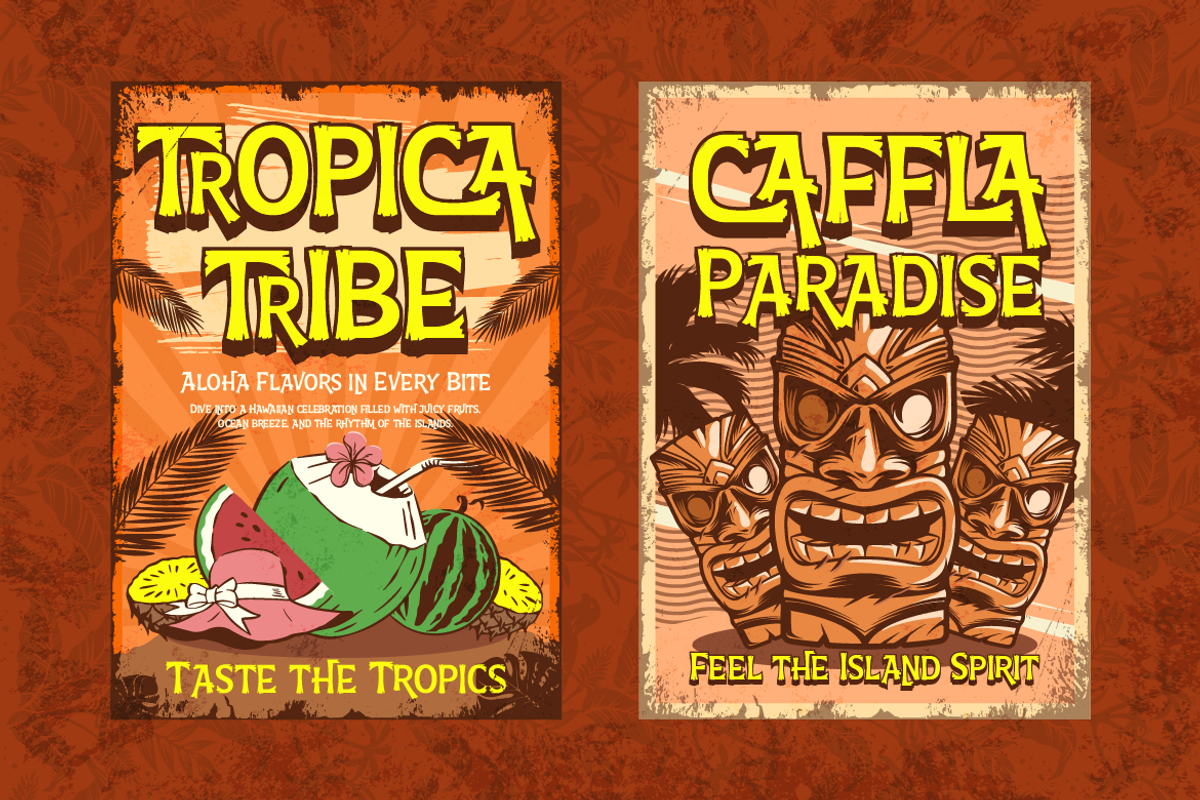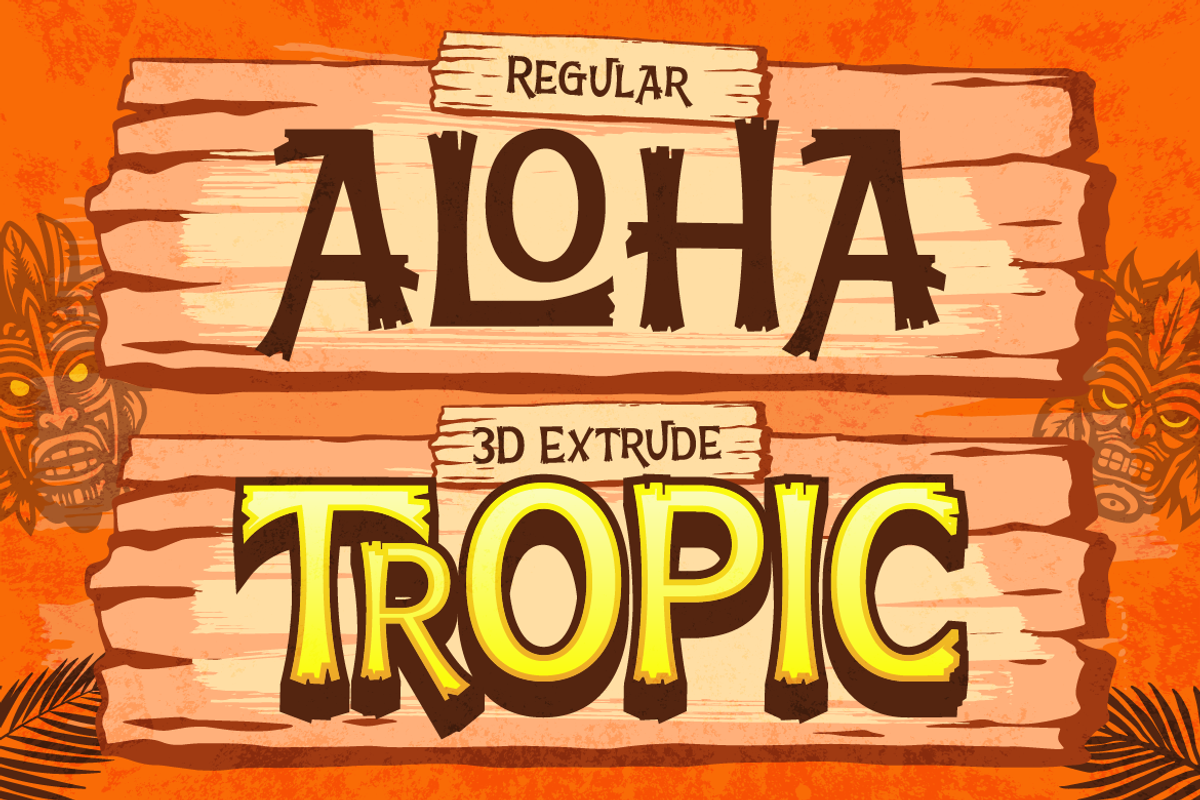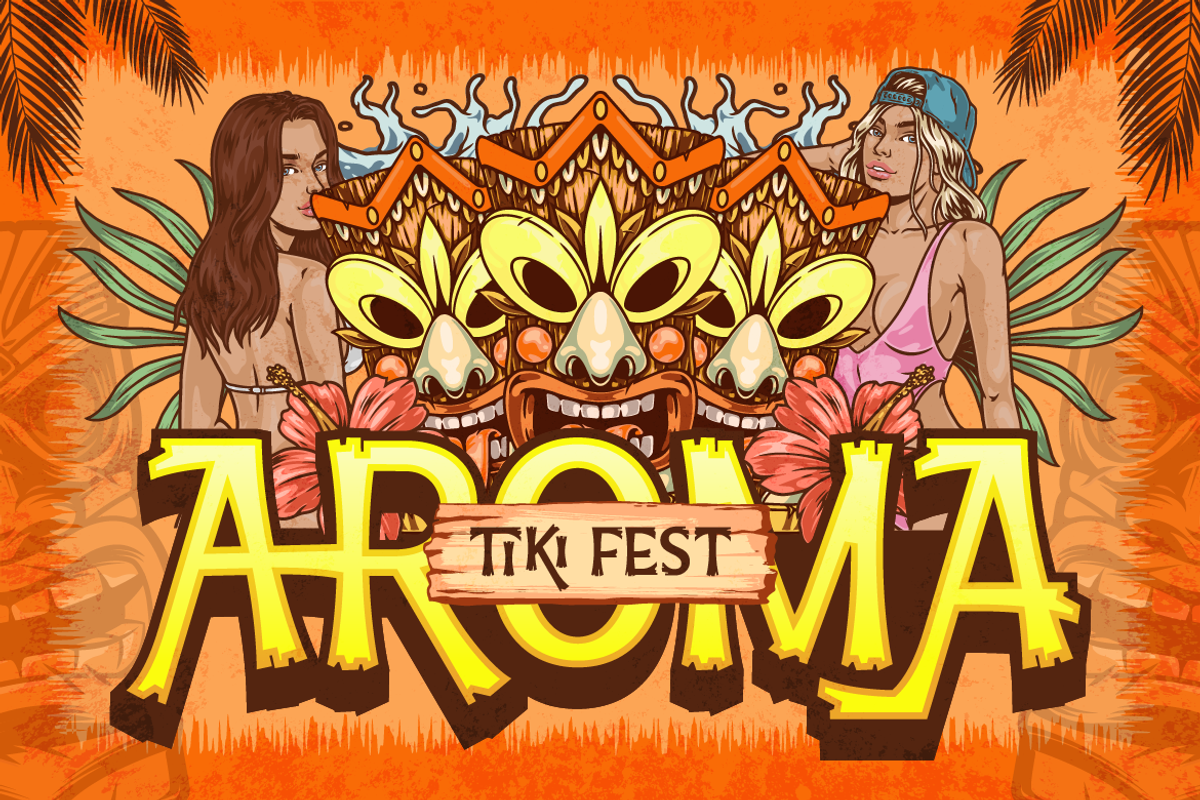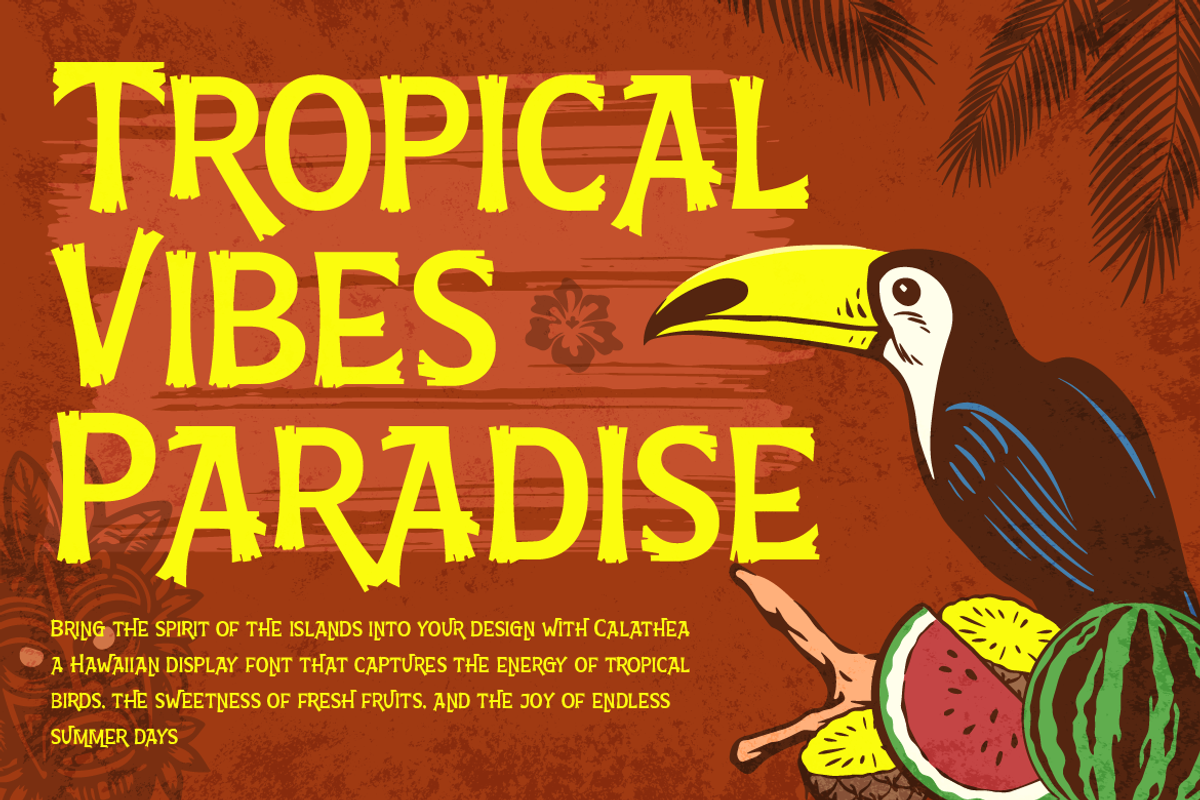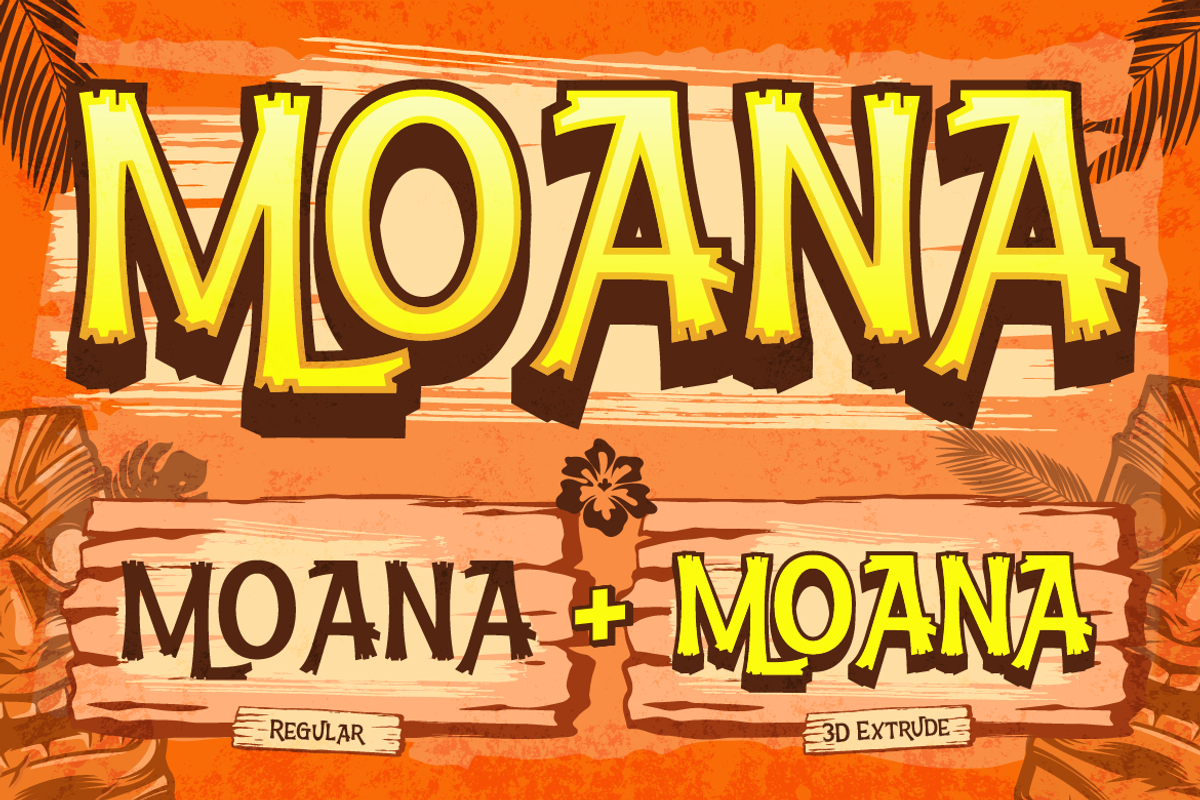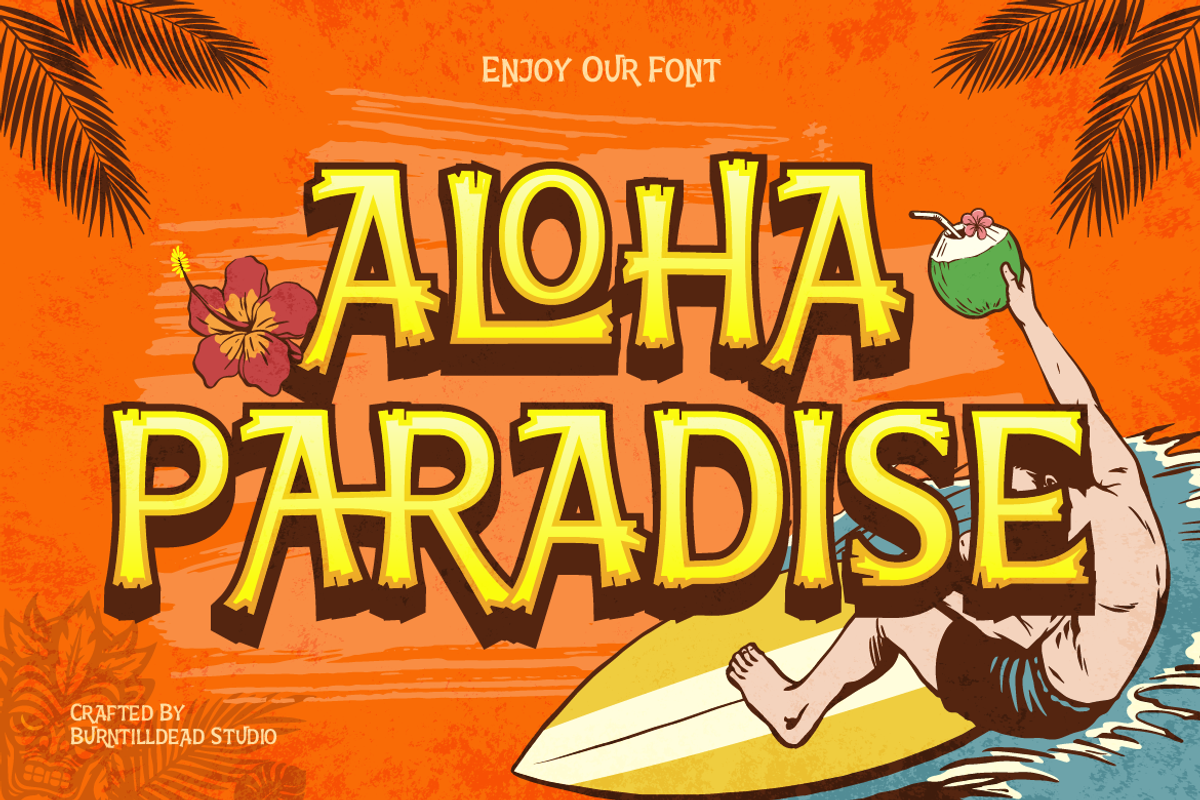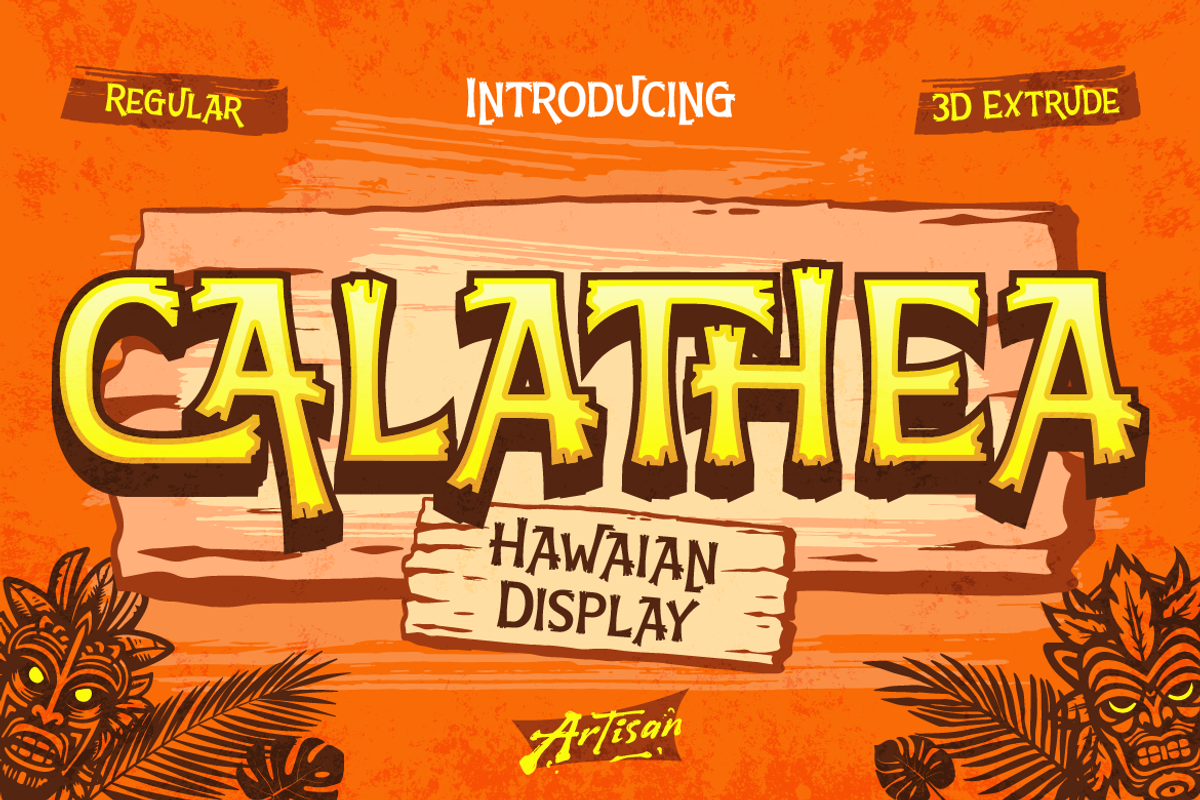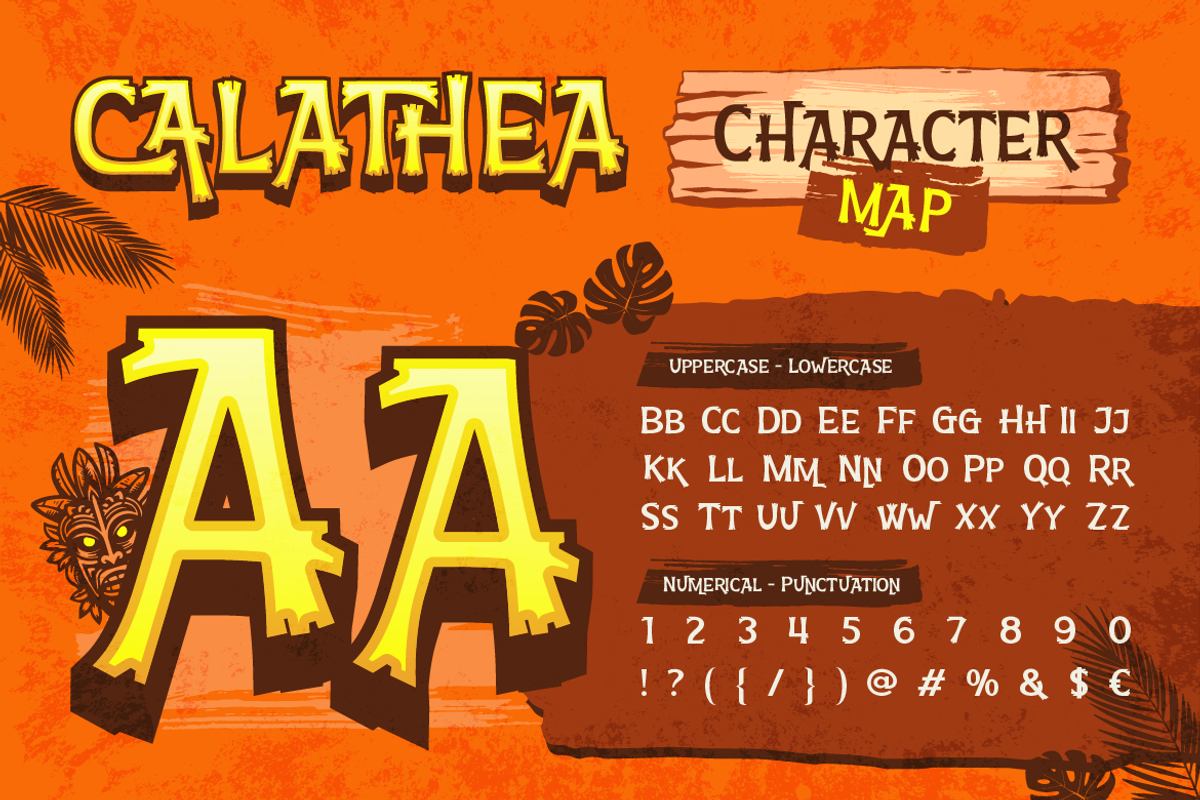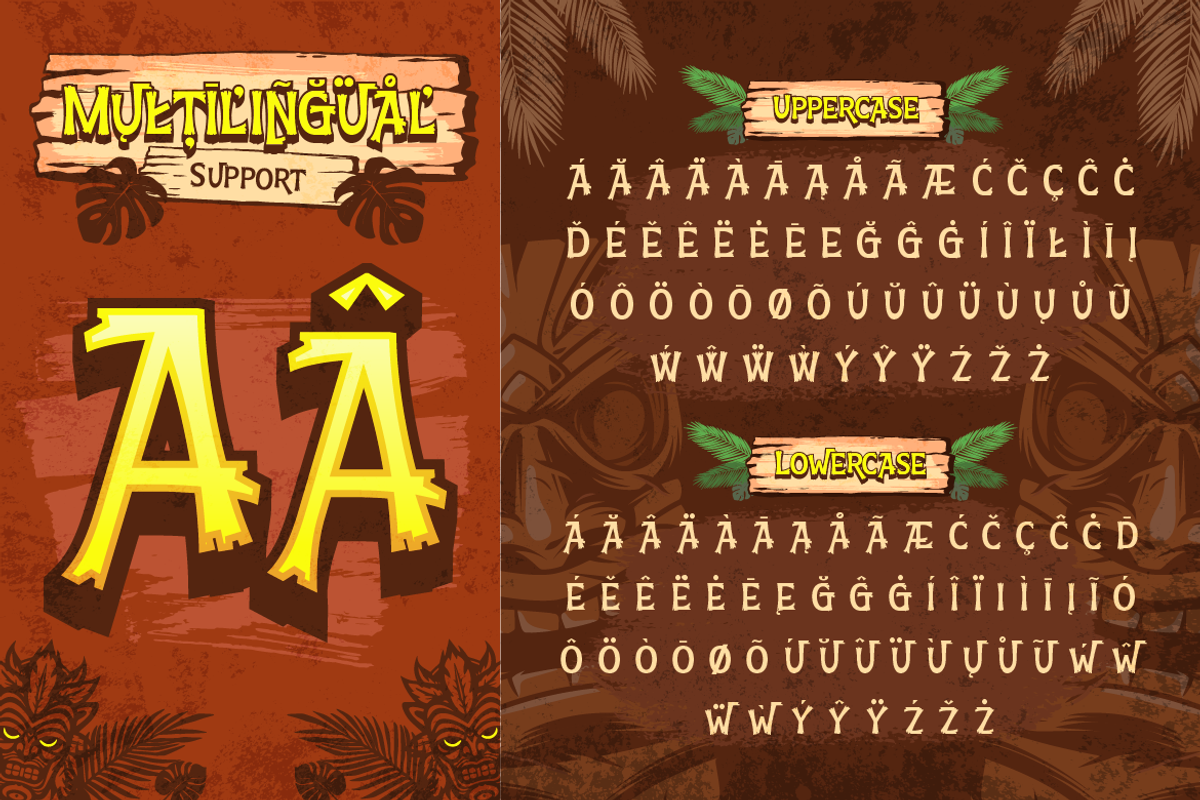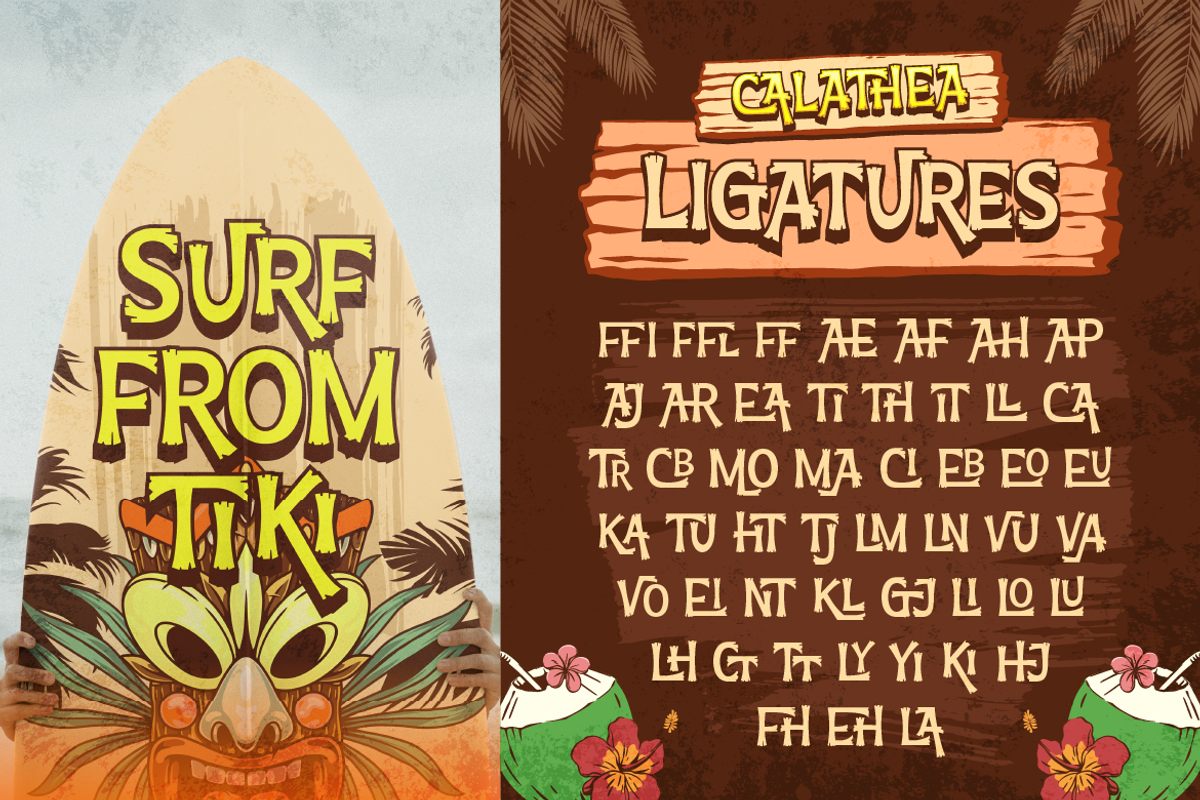
Calathea - Fun Hawaiian Font
Say aloha to Calathea, a fun and bold Hawaiian display font that brings sunshine and island vibes straight to your design! Whether you’re making summer posters, tropical logos, surfboard art, or vacation merch, Calathea instantly gives that happy and relaxed island feel. It comes in Regular and 3D Extrude styles, so you can play with depth and creativity. Inspired by tiki culture and beach life, Calathea is here to remind you to chill, smile, and enjoy the ride.
- Posters & signage
- Beach and bar branding
- Summer invitations
- Travel merch and packaging
Bring a splash of tropical joy to your designs and let every word feel like a vacation!